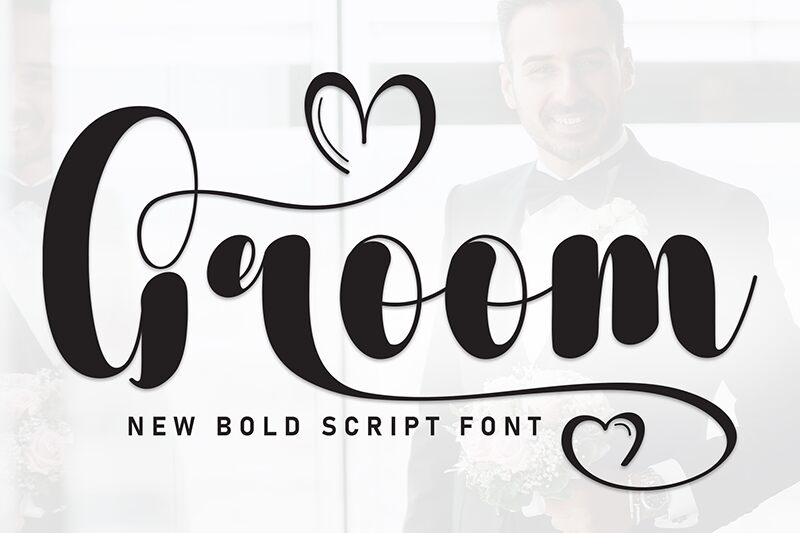
Groom
Groom font by Andi Moz is a fabulous outlined brush calligraphy tool for special design creations. The decorative typeface is expressive, sophisticated, and expressive with a bold visual tone. It’s noticeably reminiscent of vintage style fonts bringing elegant and flowing texts which will be perfect for various branding decorations.
Use the free font on packaging, invitation cards, logos of various products, wedding décor, posters handwriting inserts in books titles or magazines and business brochures. Also use it on ribbons and promotional materials whenever the opportunity presents itself.\n